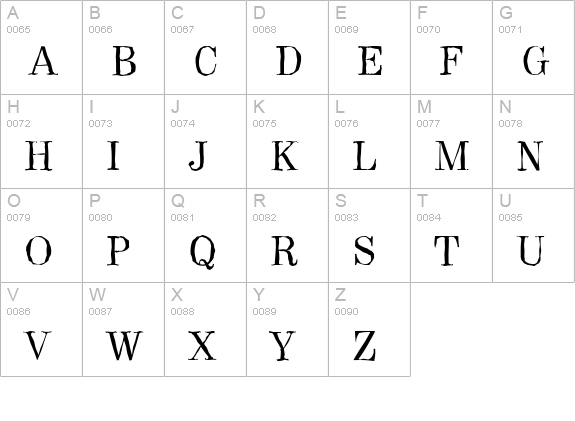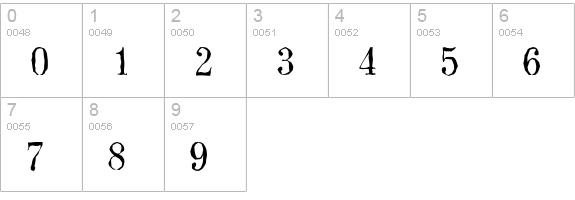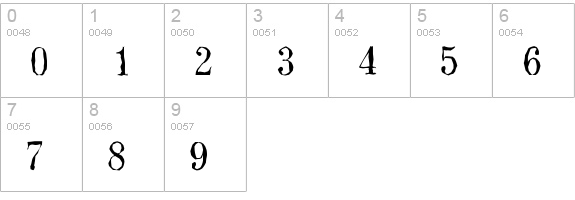
ValenciaAntique-Regular Font Details
ValenciaAntique-Regular is the standard, neutral variant in the ValenciaAntique typeface family \xE2\x80\x94 well suited to general body text, paragraphs, and standard typographic work.
ValenciaAntique-Regular is a timeless and elegant font that exudes a sense of nostalgia and sophistication. With its intricate details and classic charm, this font is perfect for adding a touch of vintage flair to your designs. Whether you're creating invitations, logos, or branding materials, ValenciaAntique-Regular will elevate your projects with its unique character. Best of all, ValenciaAntique-Regular is available for free download at FontsMarket.com. So you can enjoy the beauty and versatility of this font without breaking the bank. Don't miss out on the opportunity to enhance your designs with the timeless appeal of ValenciaAntique-Regular. Download it today and let your creativity shine!